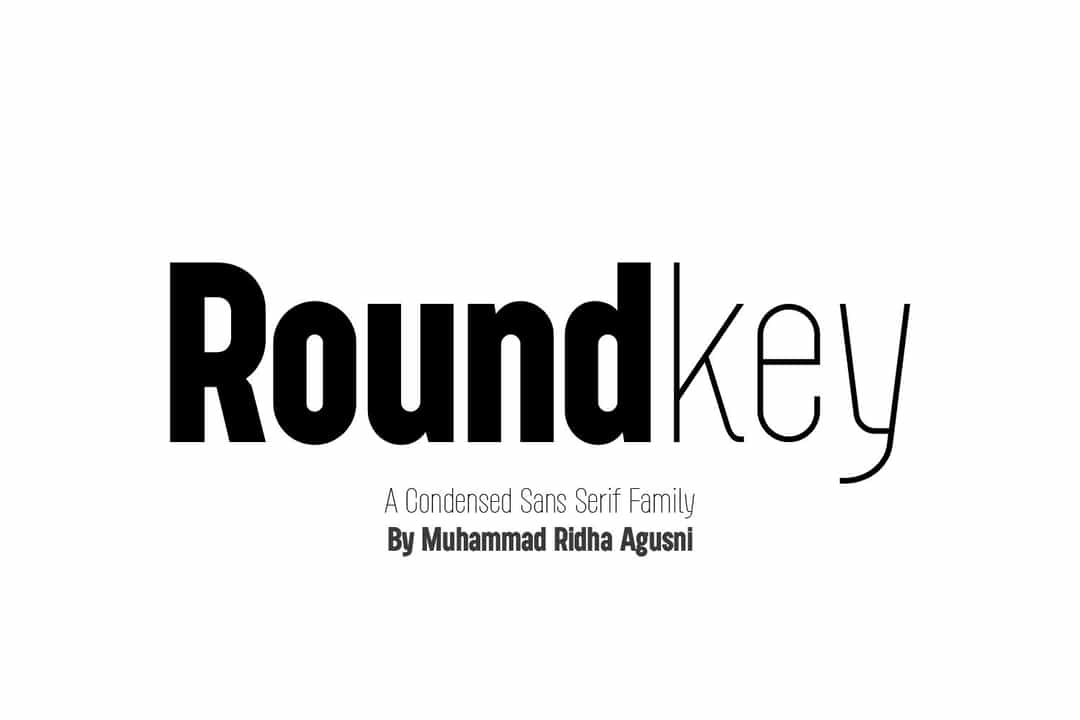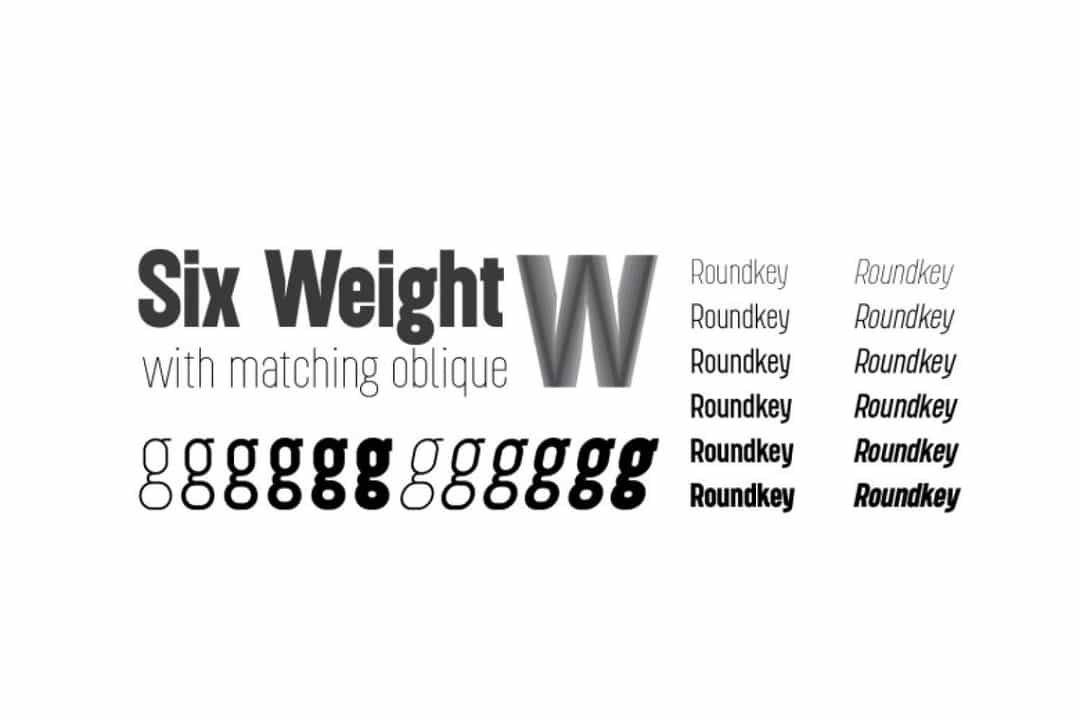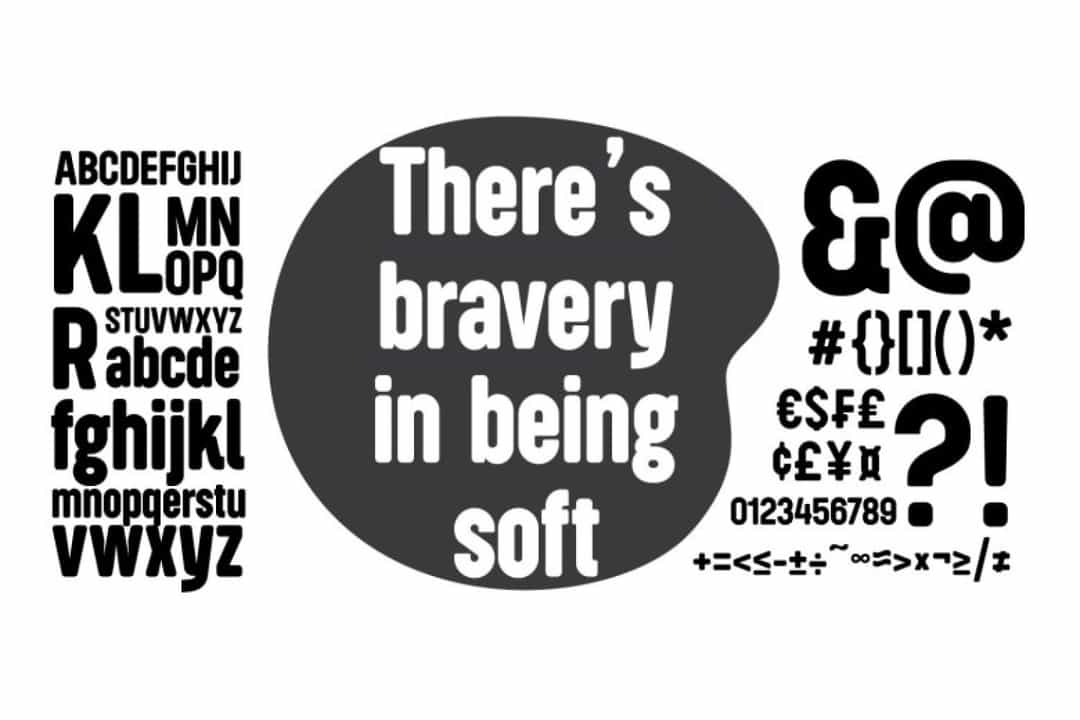
Roundkey It is a family of fonts sans serif for text and branding, consisting of two characters in their basic form such as “sharp” and “soft”, with six weights and ablique features on each character. There are 24 fonts that feature basic condensed forms with unique curves.